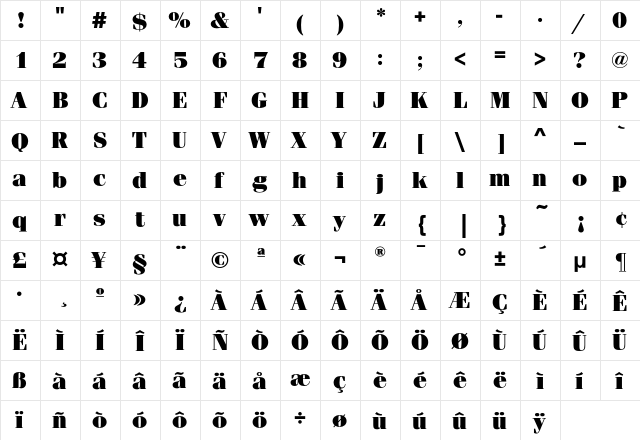
FeniceEF-Ultra Regular Font Preview
FeniceEF-Ultra Regular
Design Context for FeniceEF-Ultra Typeface
FeniceEF-Ultra offers clean, dependable letterforms without strong stylistic allegiance, making it a practical choice for designers who need flexibility.